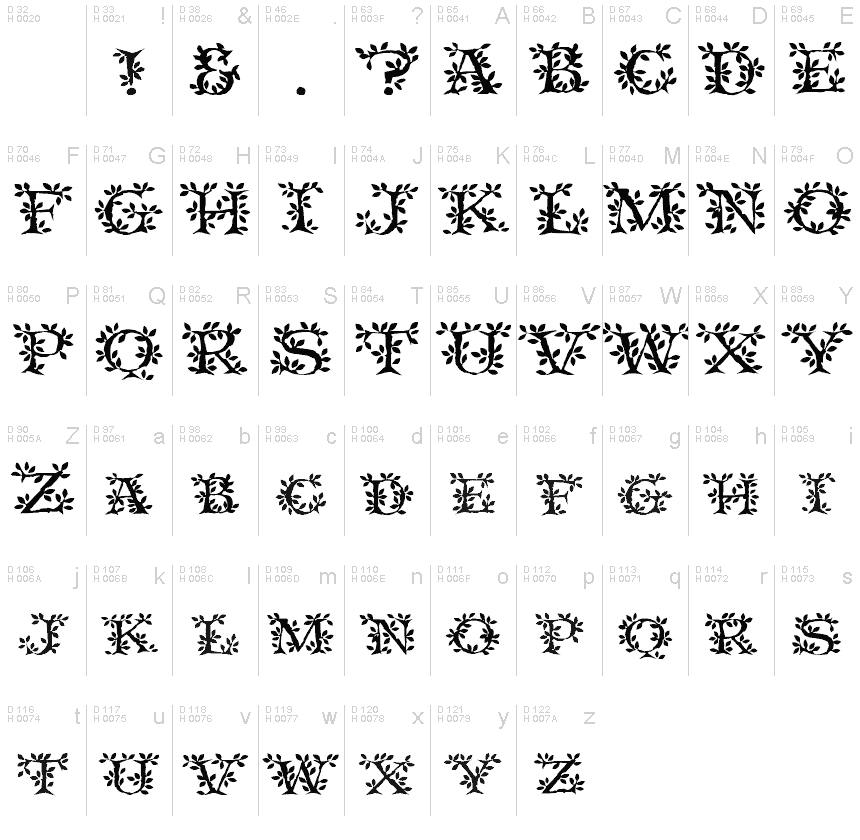
Tenderleaf
Tenderleaf, designed by D. Rakowski, is a display font that weaves the natural elegance of the outdoors into each character. With its decorative style and semi-bold weight, Tenderleaf offers an expanded width that ensures a commanding presence on any page or project. The artistry of this font lies in its organic motifs, reminiscent of tender foliage and intricate botanical details that provide an aesthetic feast for the eyes.
This typeface is not just visually striking; it's versatile enough to add a touch of sophistication to various creative endeavors. Whether it's for branding, event invitations, or editorial design, Tenderleaf is poised to infuse your work with a unique blend of nature-inspired charm and contemporary flair. Embrace the allure of Tenderleaf for projects that require a font with personality as rich and flourishing as a well-tended garden.